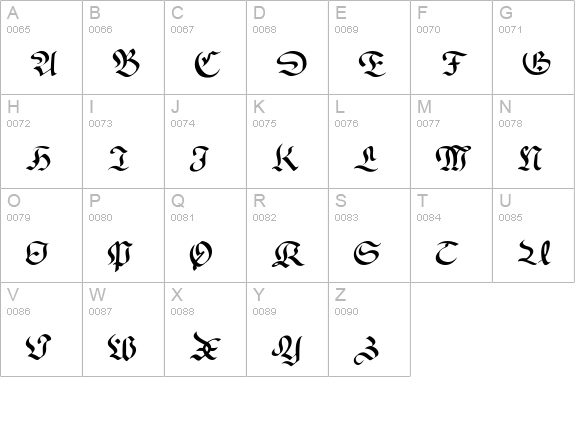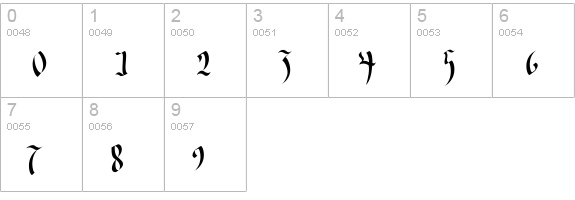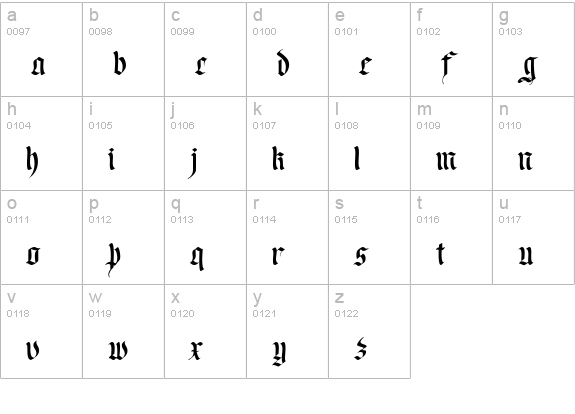
OldGerman Font Details
OldGerman font exudes a sense of vintage charm and historical elegance. With its ornate script and intricate details, this font transports you to a bygone era where handwritten manuscripts and medieval manuscripts were treasured works of art. The OldGerman font is perfect for adding a touch of old-world sophistication to your projects, whether you're designing invitations, posters, or branding materials. What's even better is that the OldGerman font is available for free download at FontsMarket.com. Now you can easily access this timeless typeface and incorporate its classic appeal into your designs without any cost. Embrace the beauty of the past with the OldGerman font and let its timeless allure elevate your creations to new heights.